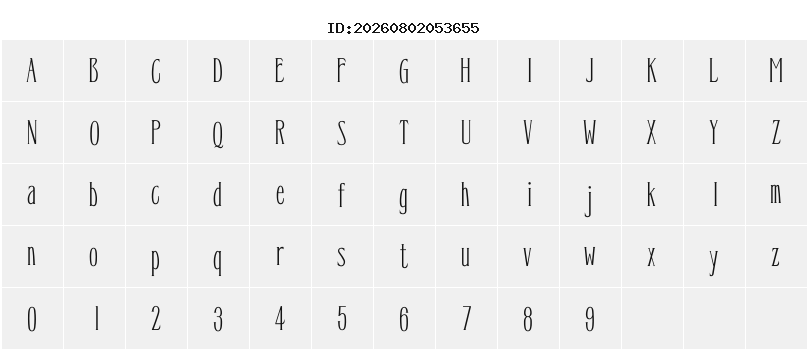
About MLady HKS Medium.ttf
MLady HKS Medium.ttf is a modern, elegant sans-serif font designed for ultimate readability and visual harmony. Perfect for branding, headlines, web design, and print materials.